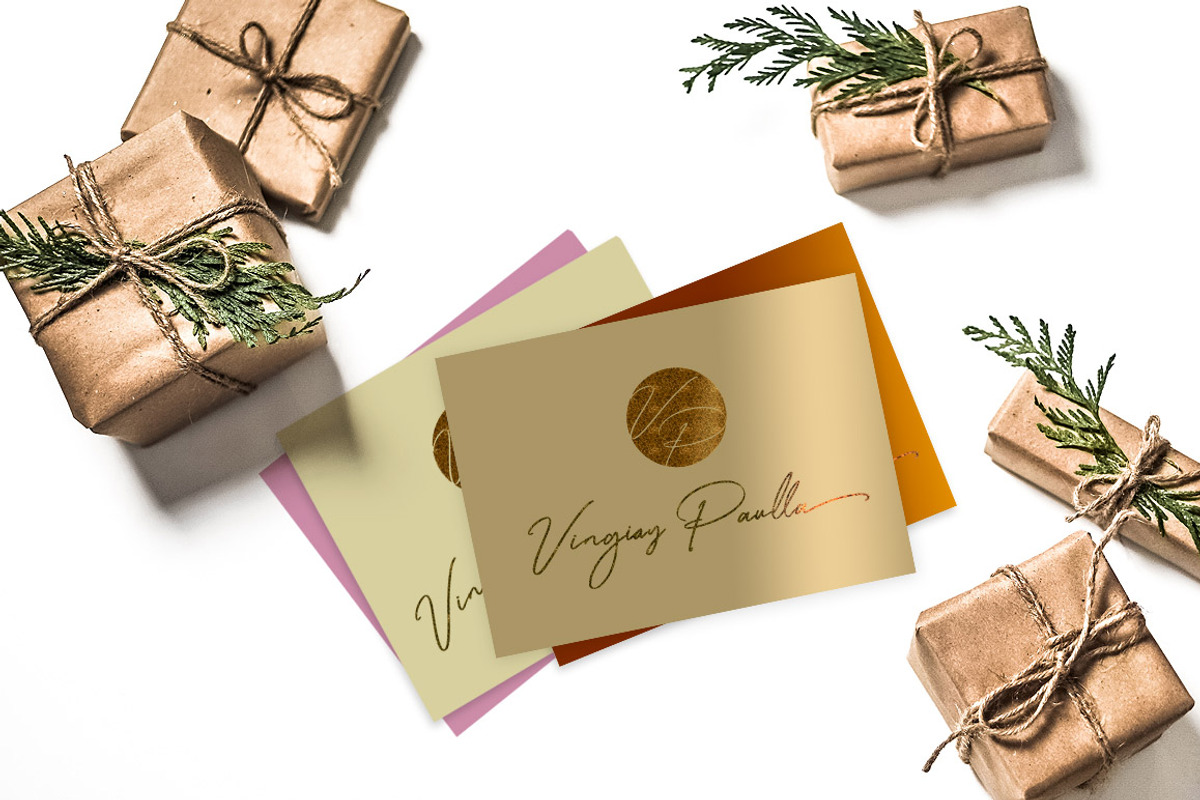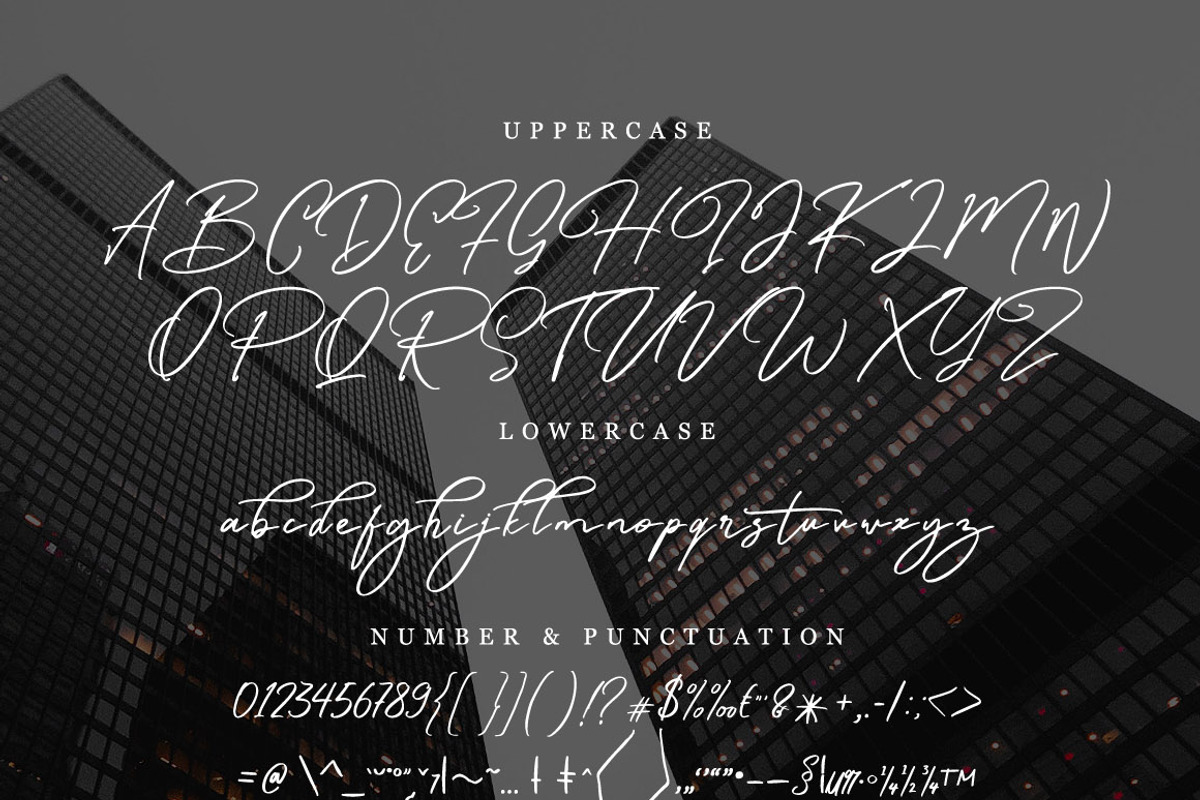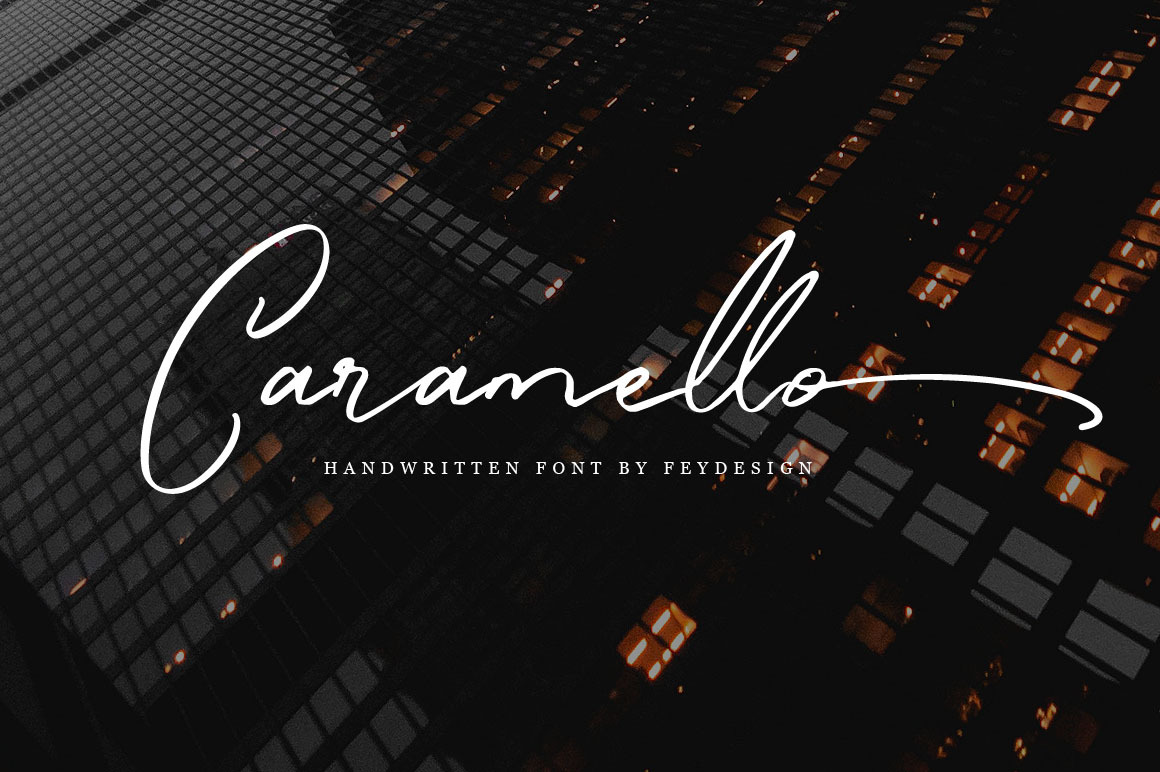
Caramello - Handwritting Script Font
Caramello is handwritten script font with signature style. Suitable for design, element design, wedding, event, t-shirt, logo, badges, sticker, and awesome work, etc...
Standard Ligatures : ca,ci,cu,ce,co,ea,ei,eu,ee,eo,ia,ii,iu,ie,io,la,li,lu,le,lo,ma,mi,mu,me,mo, na,ni,nu,ne,no,oa,oi,ou,oe,oo,pa,pi,pu,pe,po,qa,qi,qu,qe,qo,tt,ta,ti,tu,te,to,rr,ll,ra,ri,ru,re,ro,rt,at,it,ut,et,ot.
Multilanguage Support : ÀÁÂÃÄÅÆÇÈÉÊËÌÍÎÏÐÑÒÓÔÕÖØÙÚÛÜÝßàáâãäåæçèéêëìíîïðñòóôõöøùúûüýÿ
Unique style fonts